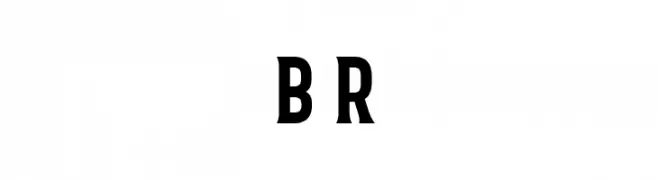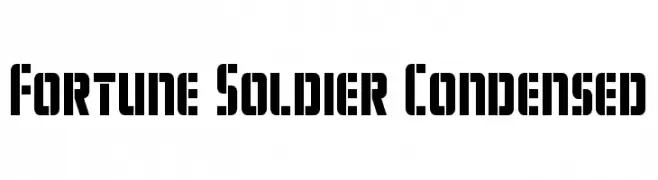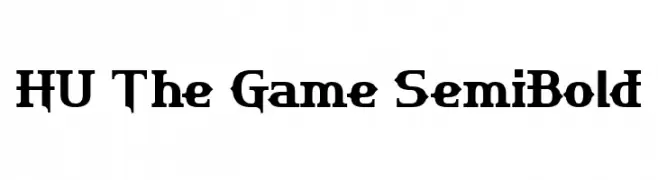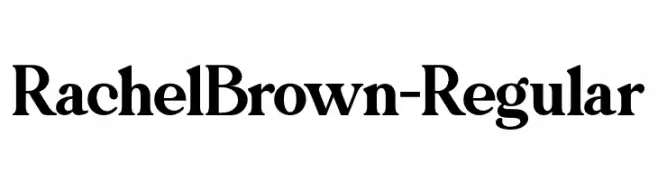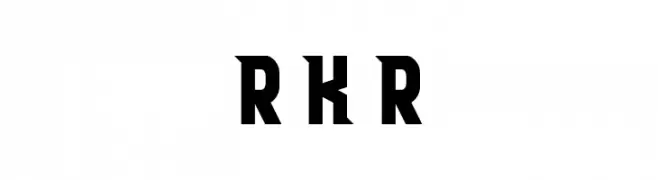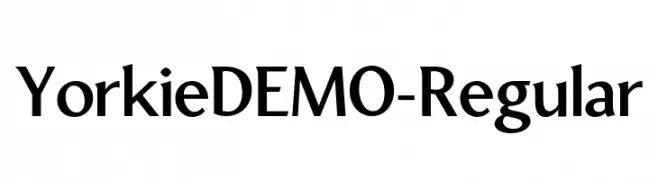
A classic serif font with bold strokes and high contrast, exuding sophistication.
A modern, bold font with clean lines and strong character presence.
A bold serif font with a classic and authoritative style.
A modern, elegant typeface with clean lines and balanced proportions.
A bold, blocky font with strong geometric shapes, ideal for impactful designs.
A bold, vintage-inspired font perfect for impactful headlines.
A bold, high-contrast serif font with a strong, authoritative presence.
A bold, modern serif font with sharp, angular serifs and a strong geometric style.
A bold, angular font with a medieval, knightly aesthetic.
A bold, condensed font with a military-inspired, stencil-like design.